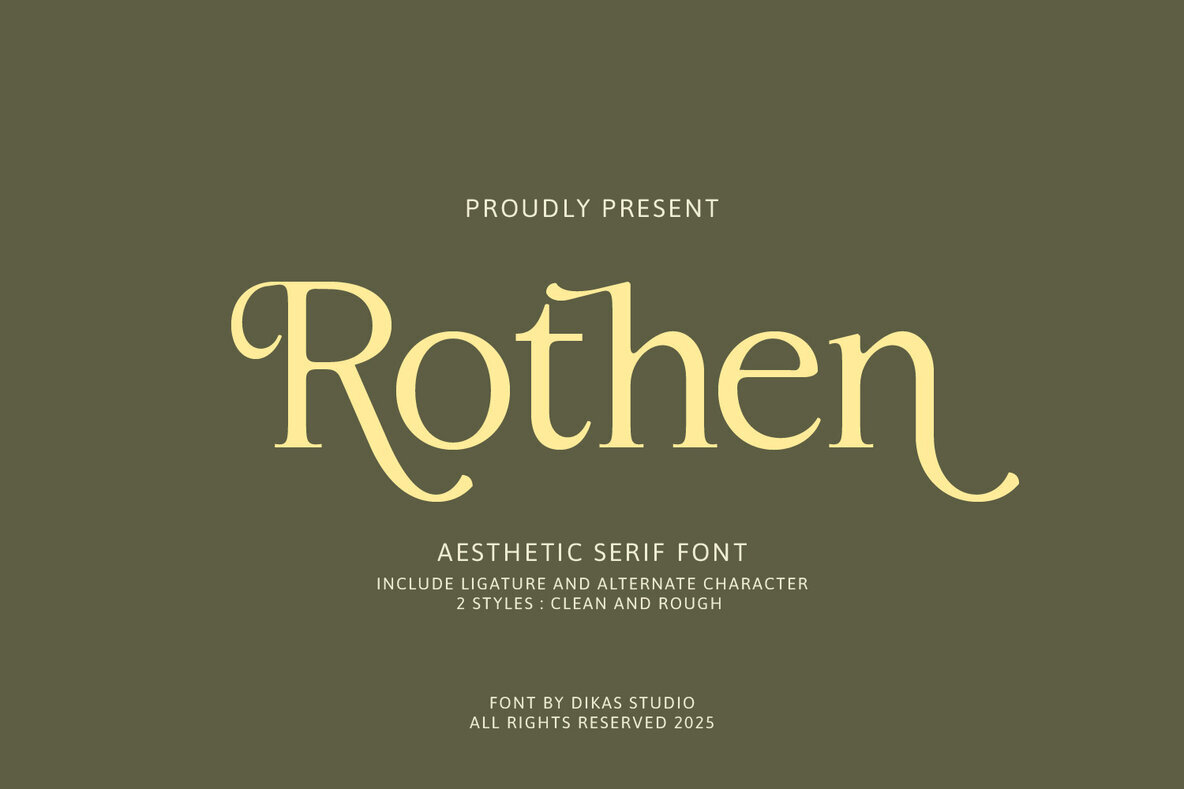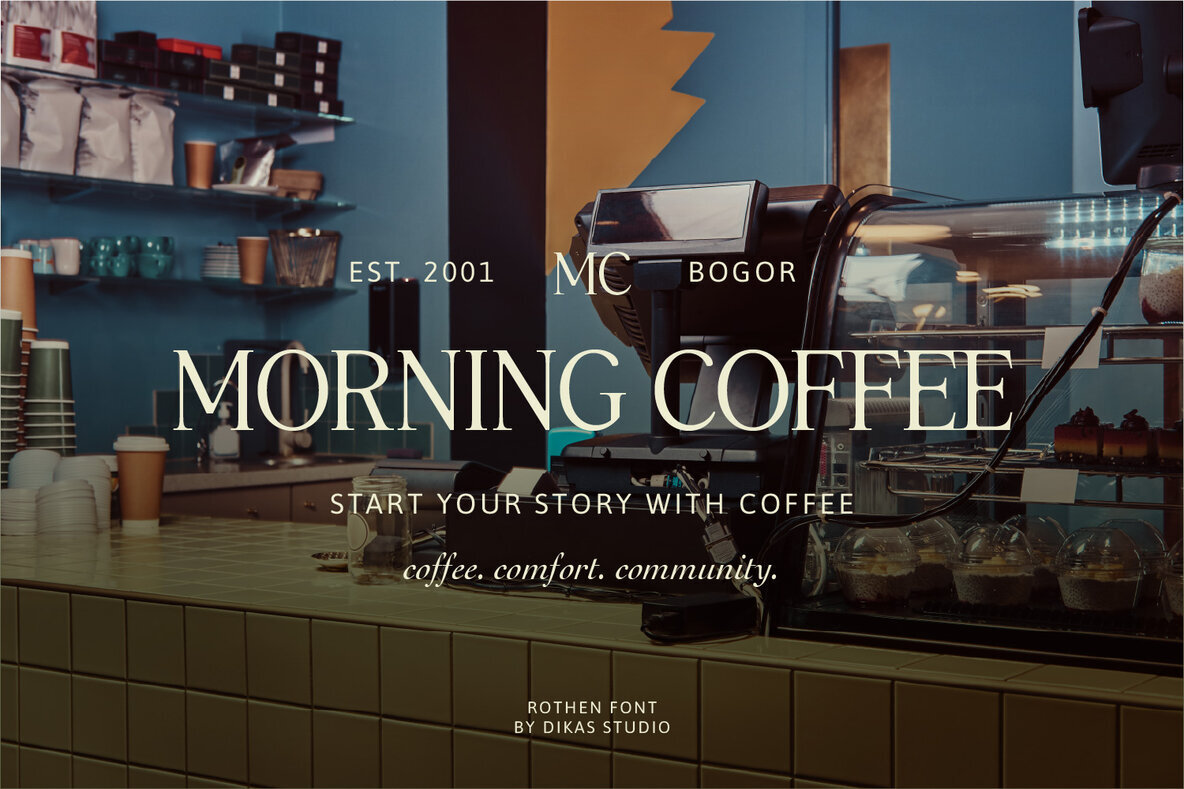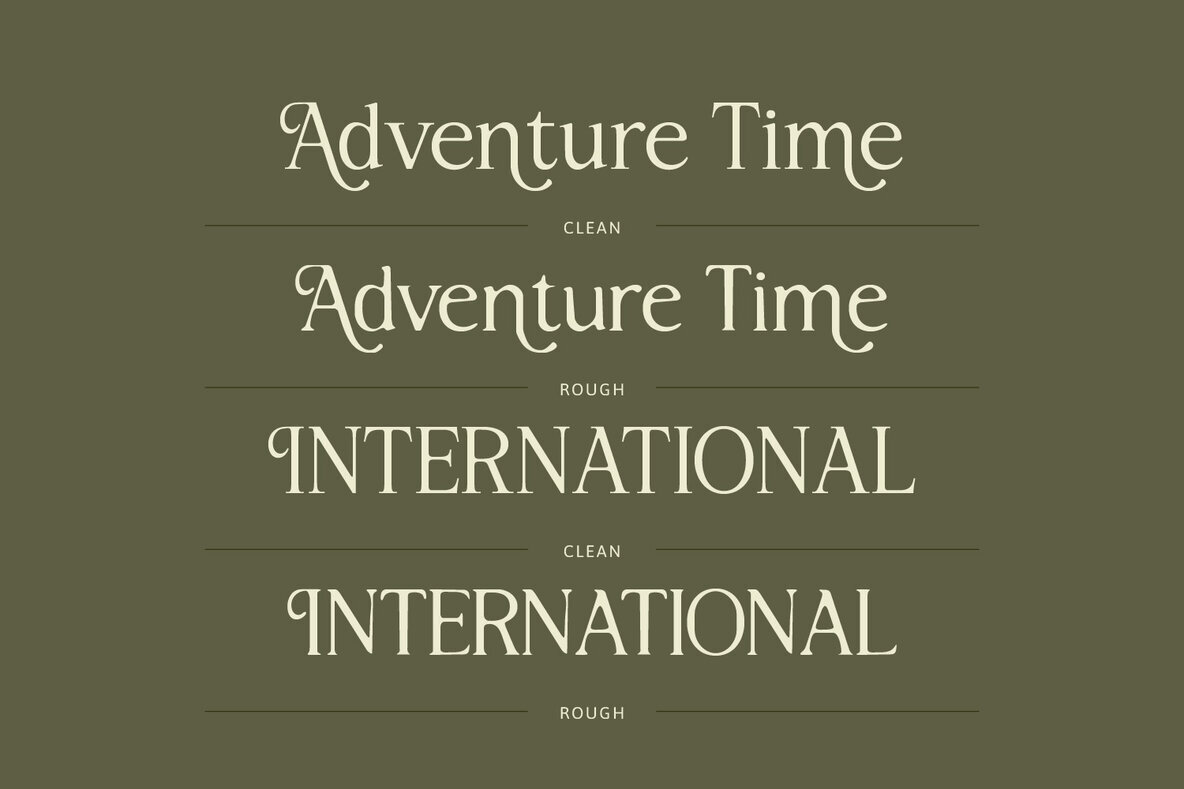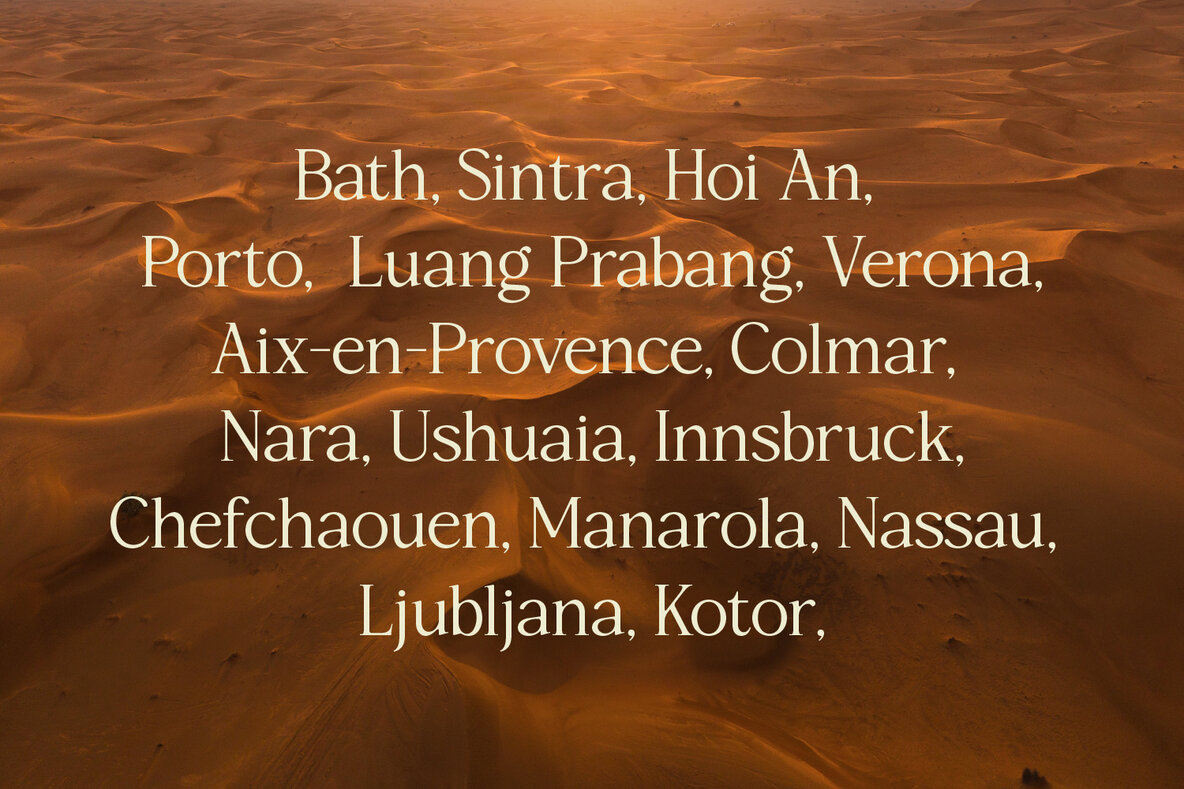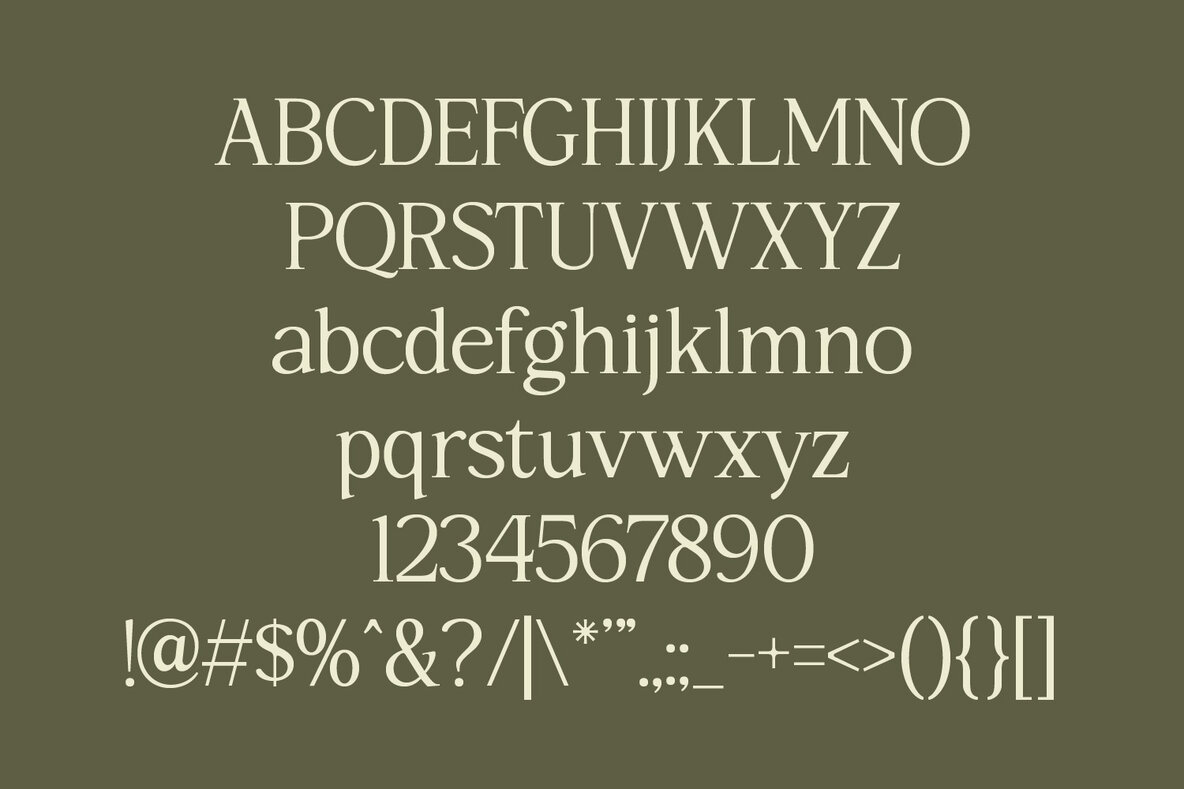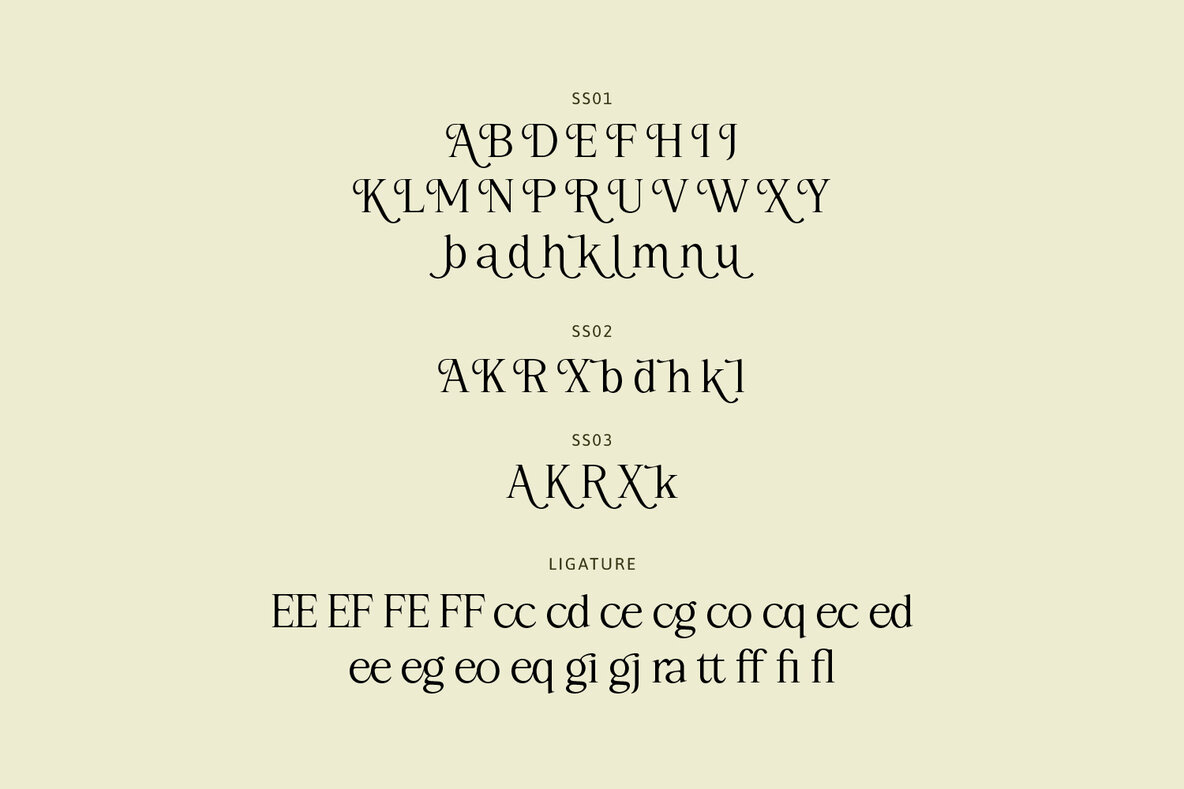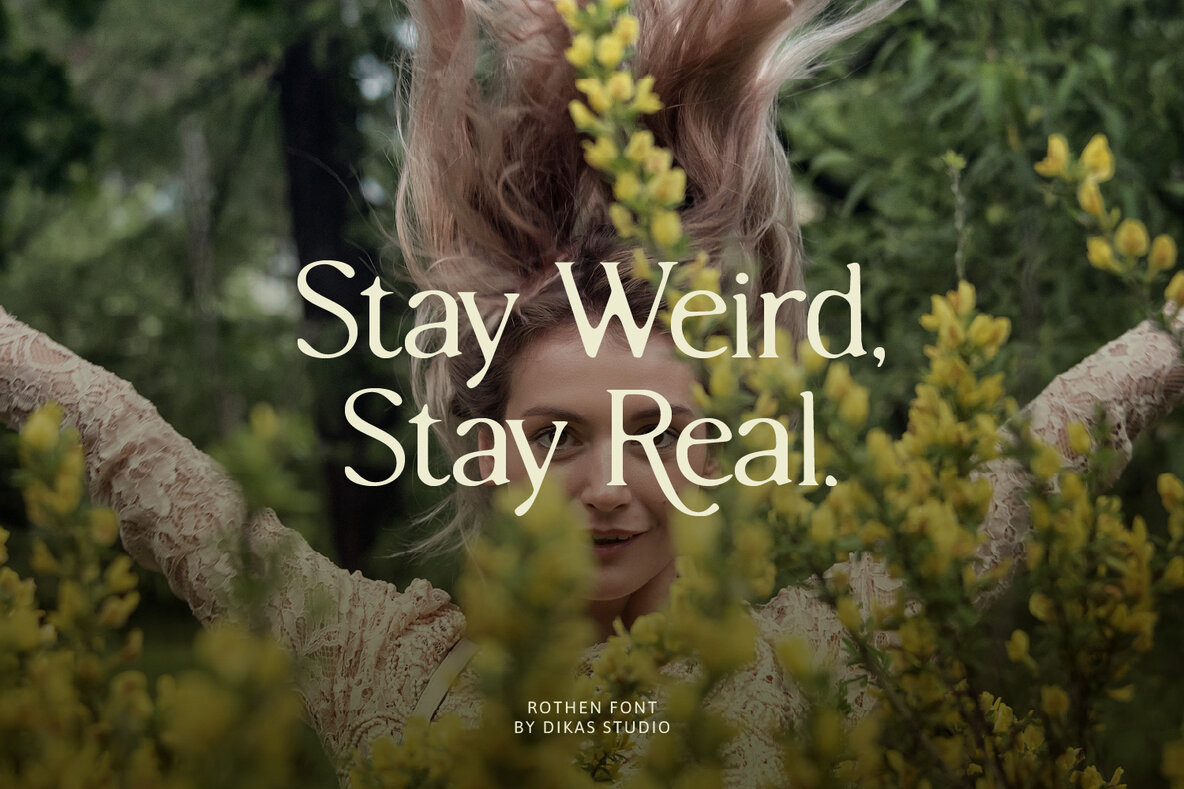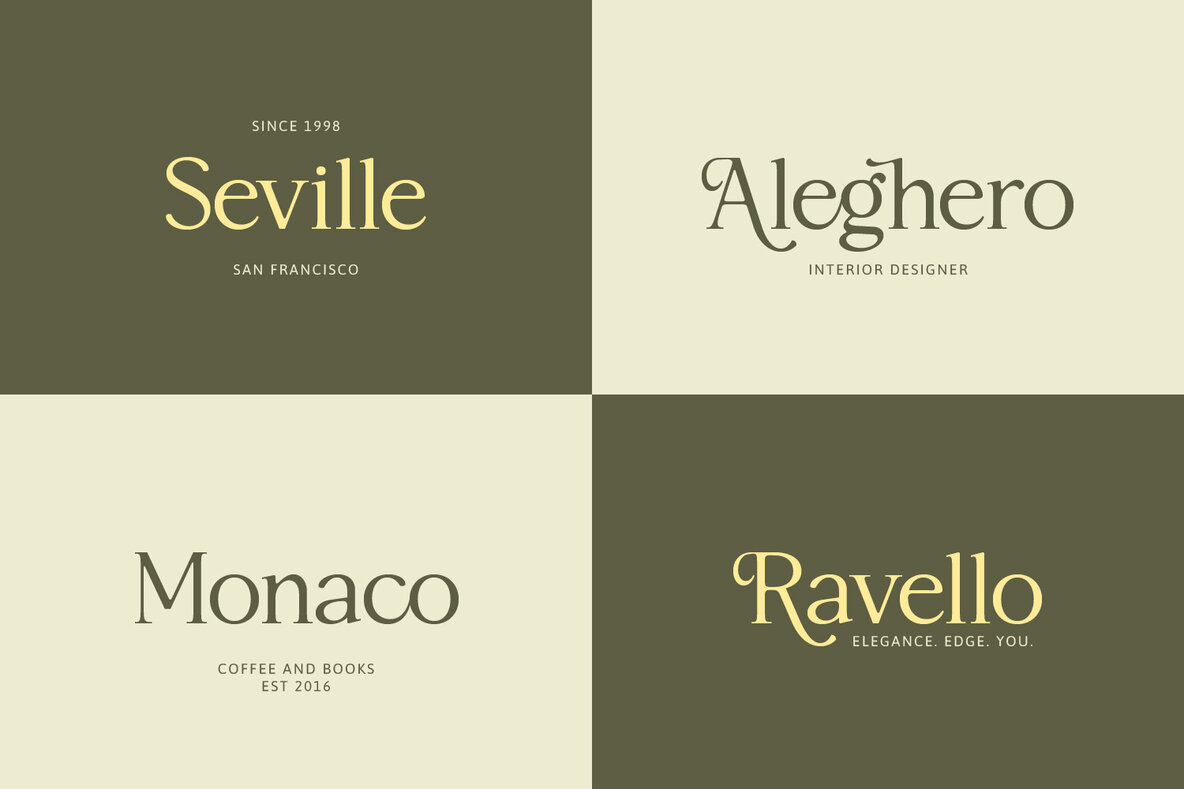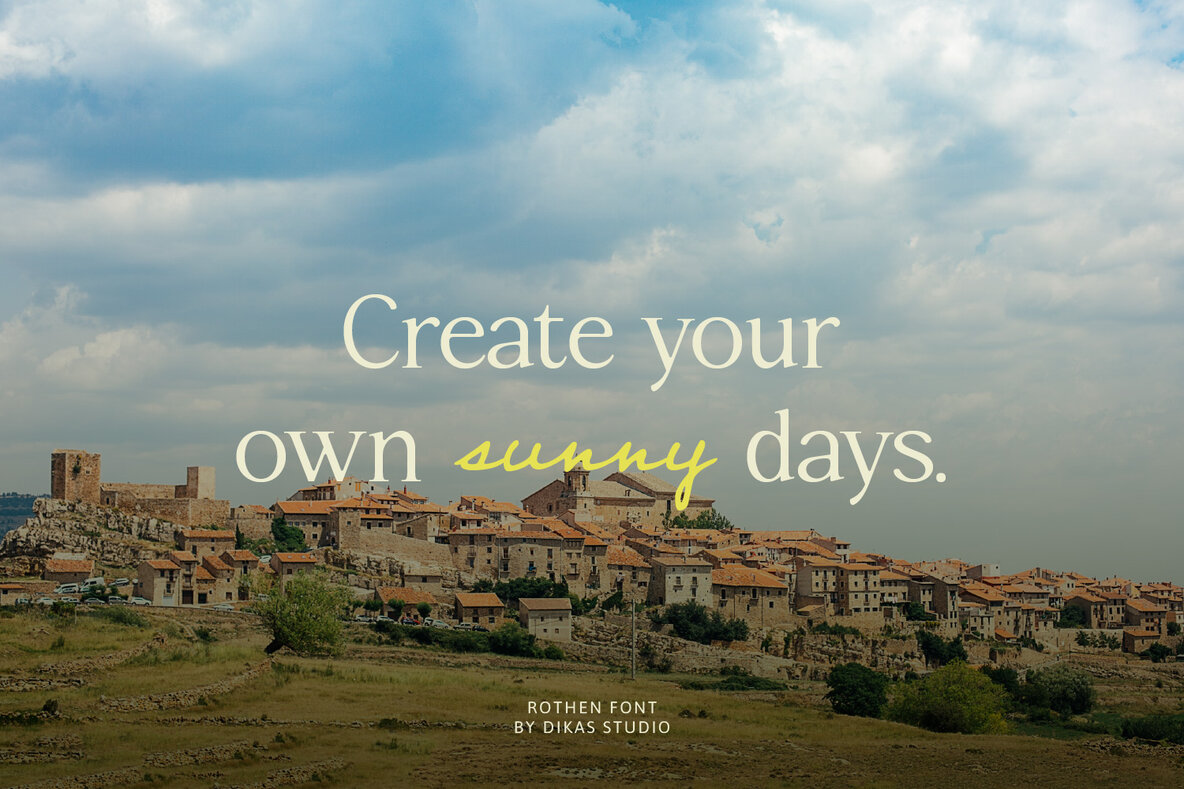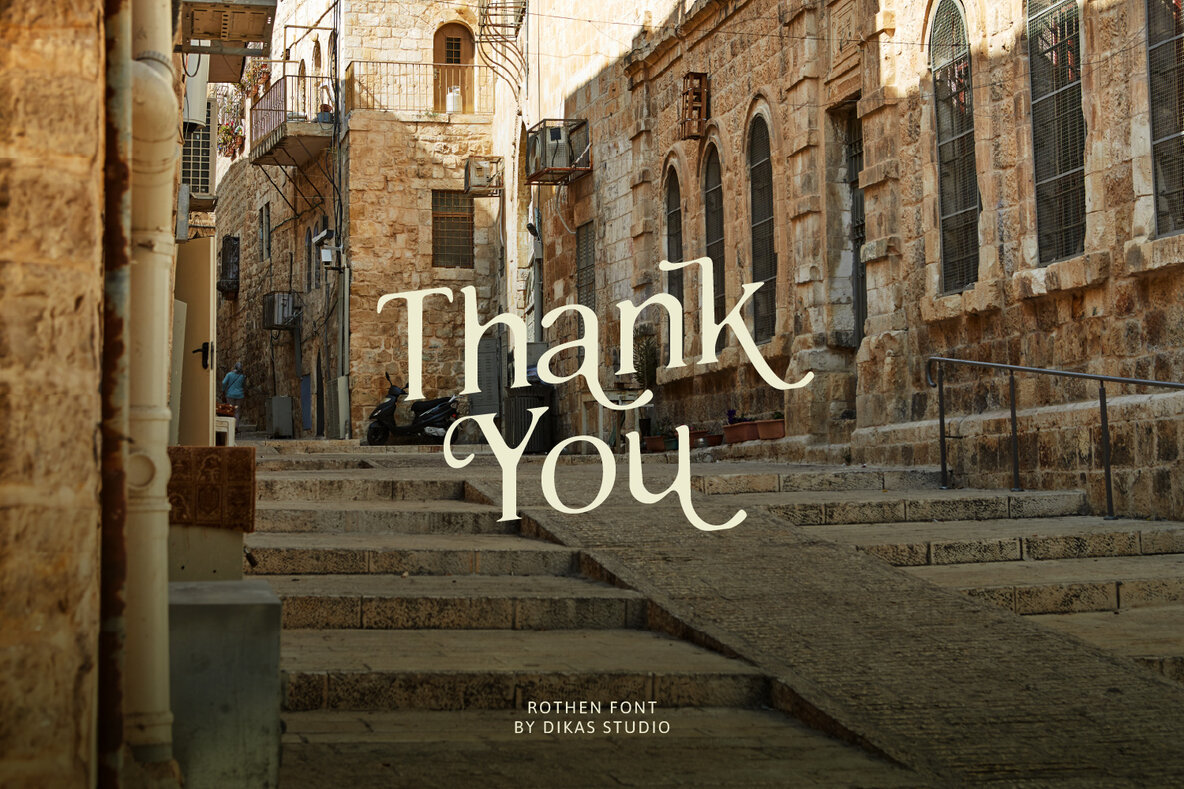
Rothen Font
Rothen Regular
Rothen Rough
Discover Rothen, a stylish serif font that marries elegance with artistic flair. Meticulously designed, Rothen stands out with its graceful aesthetic and includes beautifully crafted alternate characters and ligatures, making it ideal for expressive and high-end typography. Perfect for diverse projects such as fashion editorials, luxury branding, wedding invitations, or sophisticated packaging, Rothen adapts seamlessly to your design needs, infusing a touch of beauty and personality into your work.Rothen: Aesthetic Serif Font
Versatile Styles